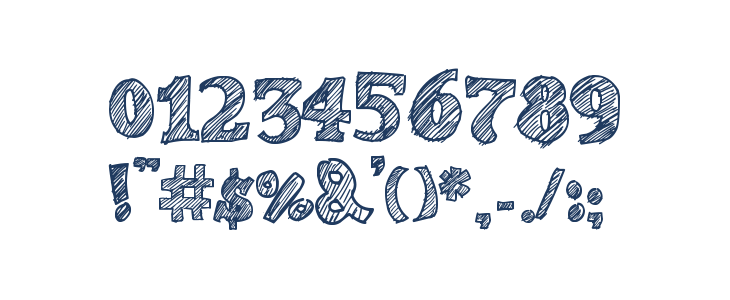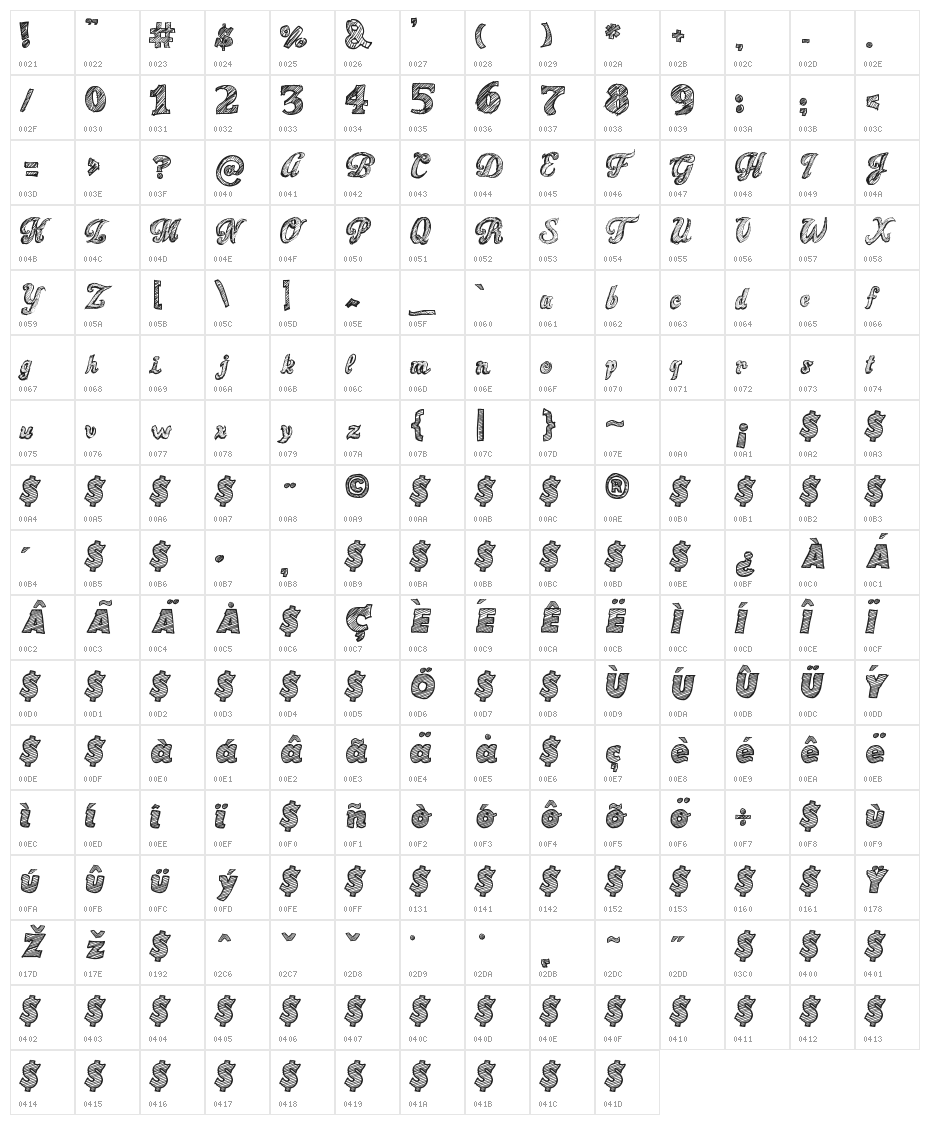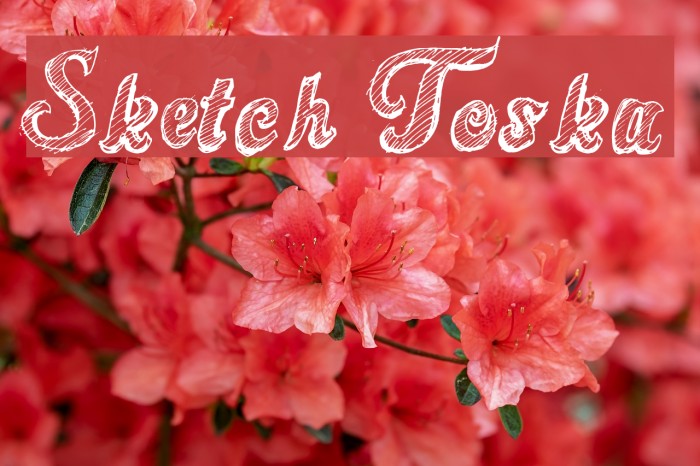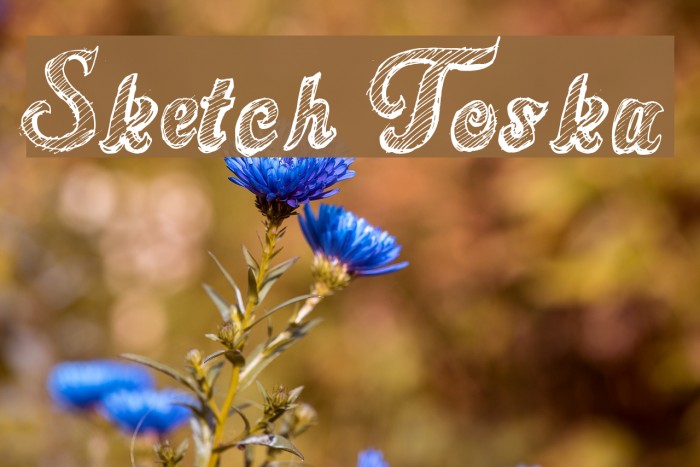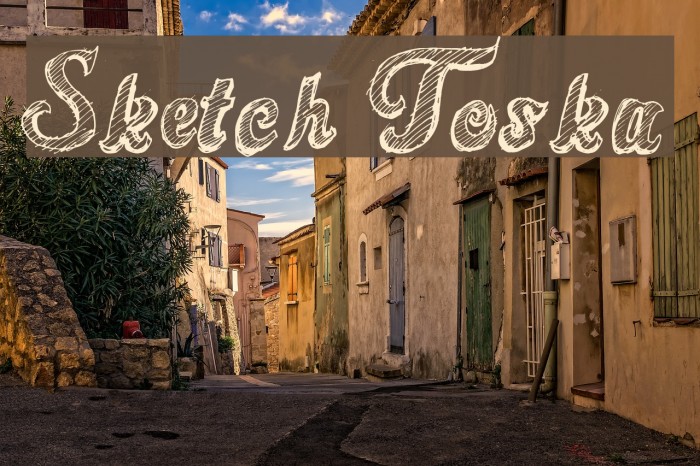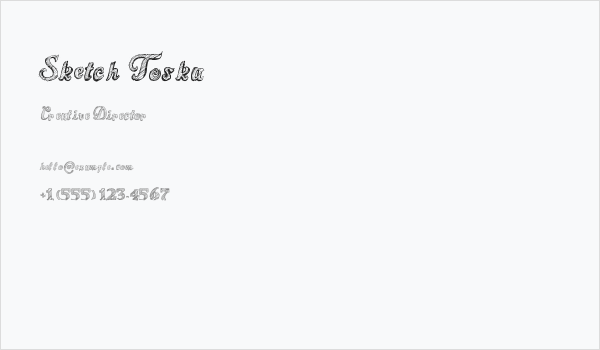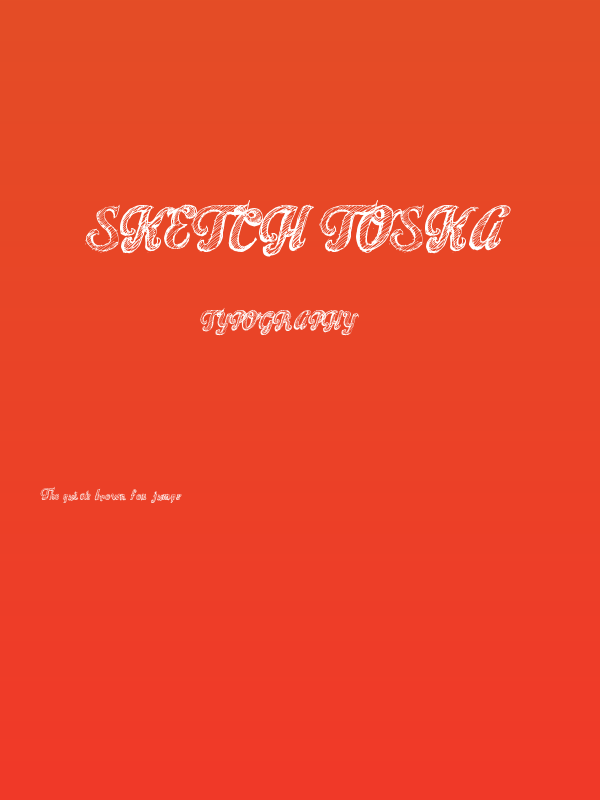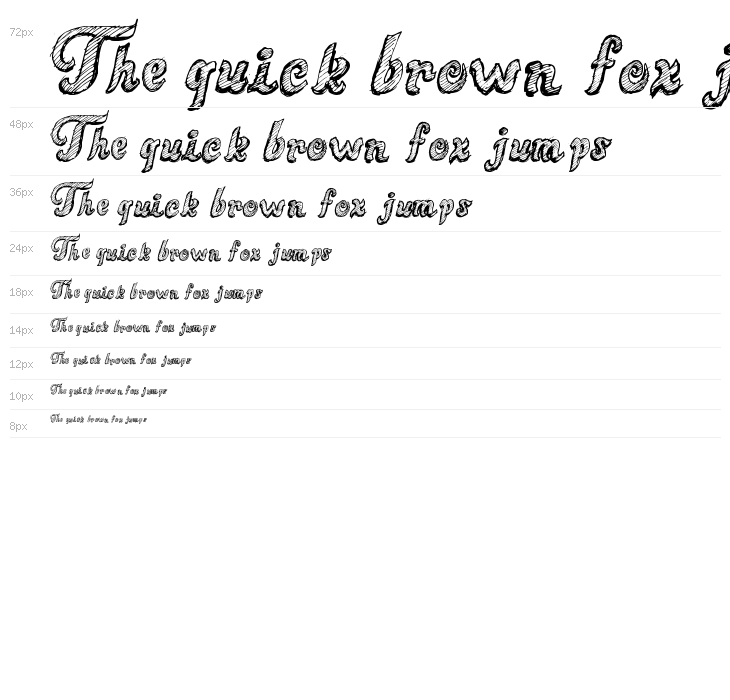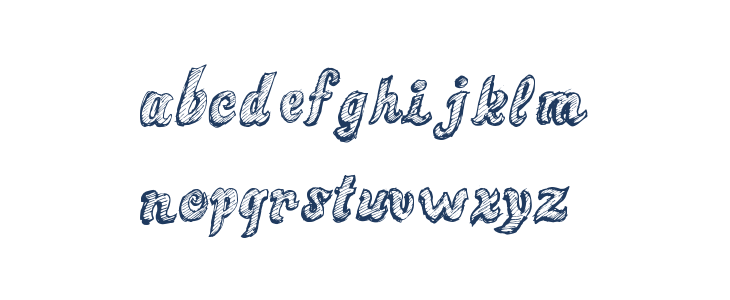
Sketch Toska Font
Sketch Toska Description
This font features a unique sketch-like appearance, with each character appearing as if it has been hand-drawn with a pencil. The strokes are uneven and textured, giving it a dynamic and artistic feel. The uppercase and lowercase letters maintain a consistent style, with bold outlines and a slightly slanted orientation, enhancing its casual and creative vibe. The numbers and special characters follow the same sketchy design, making it a cohesive set. This font is perfect for projects that require a personal touch or an informal, playful aesthetic.
SKETCH-TOSKA UPPERCASE
SKETCH-TOSKA LOWERCASE
SKETCH-TOSKA OTHER CHARS
| Overall Style | Artistic, Casual, Playful |
| Use Case | Logos, Posters, Invitations |
| Proposed Projects | Ideal for creative projects, art-related branding, informal invitations, and playful graphic designs. |